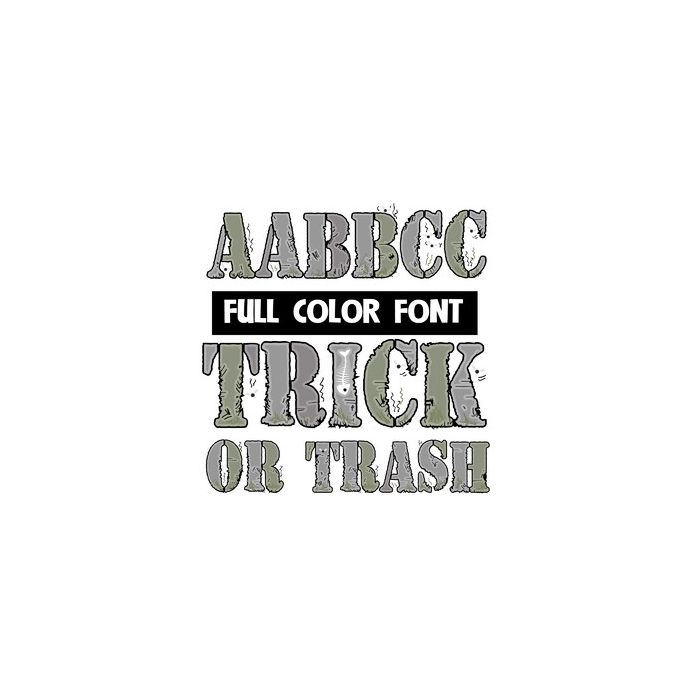
Trick or Trash Color Font
This full-color font feature earthy colored lettering, moth-munched holes and moths. There is a secondary alt case for both upper and lower that you can access through your system or Silhouette's glyph map. This font works best for titles, displays, posters and more. Please note color fonts will show as black in non compatible programs. This font type is compatible with Silhouette Studio.